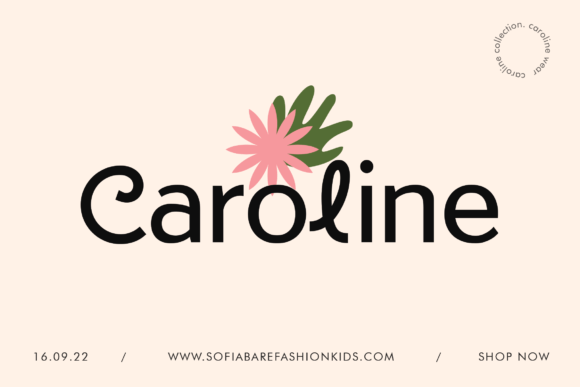
Introducing Quality Sunrise: The Modern Loopy Sans Serif Font for Creative Projects
In the world of typography, fonts play a crucial role in conveying the tone and personality of a brand or design project. With the ever-growing demand for unique and creative visual content, designers and businesses are constantly on the lookout for high-quality fonts that can help them stand out from the crowd. This is where Quality Sunrise comes in – a modern loopy sans serif font that is perfect for a wide range of creative projects.
What is Quality Sunrise?
Quality Sunrise is a fun and playful sans serif font that features a unique loopy design. Its modern and edgy aesthetic makes it perfect for designers and businesses looking to add a touch of personality to their projects. The font is designed to be versatile and can be used for a variety of applications, from logo branding and editorial design to stationery design and digital music posters.
The Many Uses of Quality Sunrise
Quality Sunrise is a highly versatile font that can be used for a wide range of creative projects. Some of the many uses of this font include:
- Logo Branding: Quality Sunrise is perfect for creating unique and memorable logos that stand out from the crowd. Its modern and edgy design makes it ideal for businesses looking to rebrand or launch a new product.
- Editorial Design: The font’s clean and legible design makes it perfect for editorial design projects such as magazines, newspapers, and books.
- Stationery Design: Quality Sunrise can be used to create a wide range of stationery items such as business cards, letterheads, and envelopes.
- Fun Game Design: The font’s playful design makes it perfect for game designers looking to create fun and engaging games for kids and adults alike.
- Unique Techno/Gadget Brand: Quality Sunrise is ideal for techno and gadget brands looking to create a modern and edgy visual identity.
- Digital Music Poster: The font’s bold and eye-catching design makes it perfect for creating digital music posters that grab attention.
- Apps Startup Design: Quality Sunrise can be used to create visually appealing app designs that stand out in the app store.
- Modern Advertising Design: The font’s modern design makes it perfect for creating eye-catching ad campaigns that grab attention.
- Art Quote: Quality Sunrise can be used to create inspiring art quotes that are perfect for social media and blogs.
- Home Decor: The font’s clean and elegant design makes it perfect for home decor projects such as wall art and decorative items.
- Book/Cover Title: Quality Sunrise can be used to create eye-catching book titles and cover designs that stand out on bookshelves.
- Special Events: The font’s bold and eye-catching design makes it perfect for creating promotional materials for special events such as concerts, festivals, and weddings.
Features of Quality Sunrise
Quality Sunrise comes with a range of features that make it a highly versatile and user-friendly font. Some of the key features of this font include:
- Unique Loopy Design: Quality Sunrise features a unique loopy design that sets it apart from other sans serif fonts.
- Modern and Edgy Aesthetic: The font’s modern and edgy aesthetic makes it perfect for designers and businesses looking to create a bold visual identity.
- Clean and Legible: Quality Sunrise is clean and legible, making it perfect for body text and headlines.
- Highly Versatile: The font is highly versatile and can be used for a wide range of creative projects.
- Easy to Use: Quality Sunrise is easy to use and comes with a simple and intuitive design.
Tips for Using Quality Sunrise
Here are some tips for using Quality Sunrise in your design projects:
- Use it for Headlines: Quality Sunrise is perfect for headlines and titles. Use it to create eye-catching headlines that grab attention.
- Experiment with Colors: The font’s bold and eye-catching design makes it perfect for experimenting with different colors and gradients.
- Pair it with Other Fonts: Quality Sunrise can be paired with other fonts to create a unique and visually appealing typography.
- Use it for Body Text: The font’s clean and legible design makes it perfect for body text. Use it for paragraphs and articles.
Quality Sunrise is a modern loopy sans serif font that is perfect for a wide range of creative projects. Its unique design, modern aesthetic, and high versatility make it a great addition to any designer’s font collection. Whether you’re looking to create a bold visual identity, eye-catching headlines, or unique typography, Quality Sunrise is the perfect font for the job.